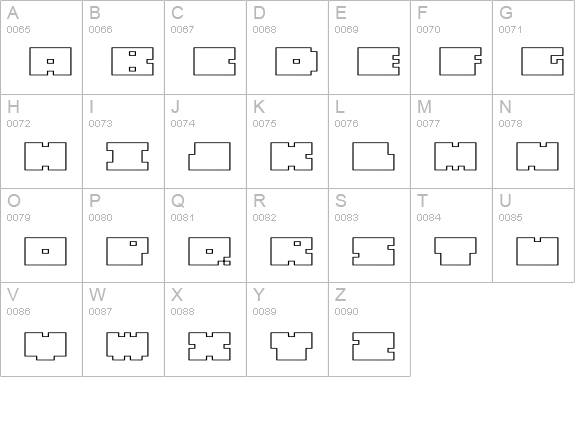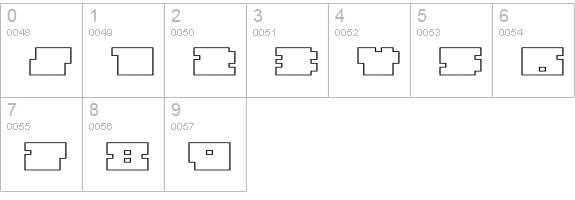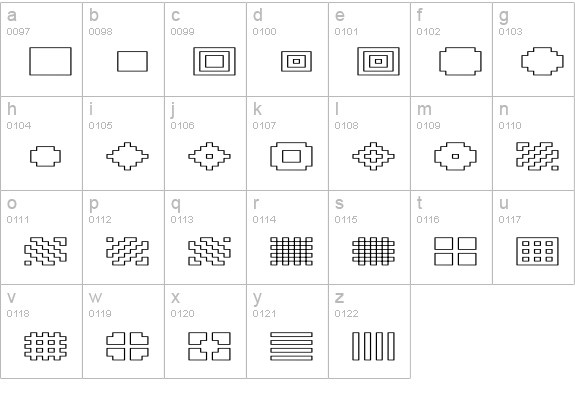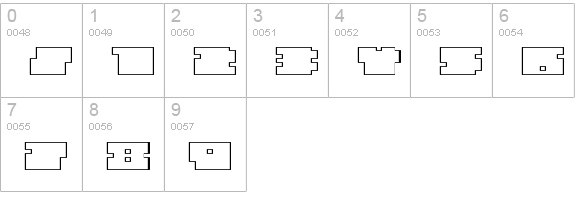
QUBE HOLLOW WIDE is a distinctive, extended-width variant in the QUBE typeface family \xE2\x80\x94 well suited to design and typography projects.
Introducing QUBE HOLLOW WIDE, a stunningly modern and stylish font that is sure to captivate and elevate any design project. With its sleek and clean lines, this font exudes an air of sophistication and contemporary elegance. QUBE HOLLOW WIDE is perfect for a wide range of applications, whether you're designing a logo, creating eye-catching headlines, or crafting striking advertisements. Its unique hollow design adds a touch of intrigue and depth, making it stand out from the crowd. One of the most remarkable aspects of QUBE HOLLOW WIDE is that it is available for free download at FontsMarket.com. This means that you can effortlessly add this exceptional font to your collection without breaking the bank. With just a few clicks, you can enhance your creative endeavors with this high-quality typeface. Whether you're a professional designer, a creative enthusiast, or simply someone who appreciates beautiful typography, QUBE HOLLOW WIDE is a must-have addition to your font library. Its versatility and visual impact make it an invaluable asset for all your design projects. Don't miss out on the opportunity to elevate your designs with QUBE HOLLOW WIDE. Download it for free at FontsMarket.com and unleash your creativity today.